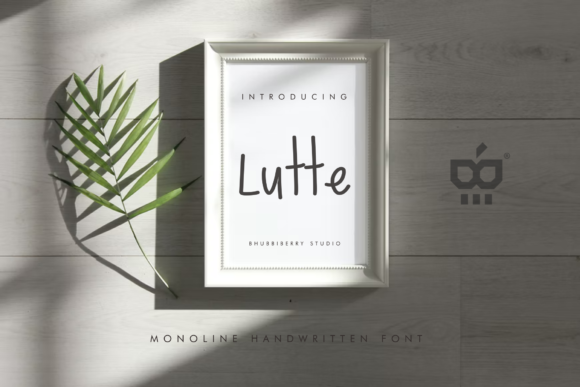
Unleash the Artistic Charm of Your School Logos with Lutte Font: A Typographic Masterpiece for Educational Excellence
In the realm of education, a school logo is more than just a visual representation; it's a powerful symbol of identity, pride, and aspiration. It's the emblem that adorns uniforms, letterheads, and school signage, leaving a lasting impression on students, parents, and the community. As educators, we understand the significance of crafting a school logo that truly captures the essence of your institution, conveying its values, mission, and unique spirit.
Introducing Lutte Font, the ultimate font family meticulously designed to elevate the visual impact of your school logos. Lutte, an exquisite thin lettered and simple script font, is the brainchild of bhubbiberrystudio, a renowned type foundry known for their exceptional craftsmanship in the world of typography.
With Lutte as your chosen font, your school logo will exude an aura of sophistication and elegance that sets it apart from the ordinary. Its graceful curves and delicate lines evoke a sense of timeless beauty, while its inherent versatility allows for endless creative possibilities.
Whether you envision a logo that radiates warmth and approachability or one that exudes strength and authority, Lutte's inherent versatility seamlessly adapts to your vision. Its thin strokes lend a touch of lightness and airiness, making it ideal for creating logos that feel inviting and welcoming. Alternatively, the font's bold presence commands attention, making it perfect for logos that demand a more assertive presence.
Beyond its aesthetic appeal, Lutte is a practical choice for school logos, ensuring legibility and clarity even at small sizes. This is of utmost importance, as your logo will be prominently displayed on a variety of materials, from letterheads and business cards to uniforms and banners. With Lutte, you can be confident that your school's logo will always convey your message with precision and impact.
Join the growing number of schools that have chosen Lutte Font to elevate their visual identity. Experience the transformative power of typography as Lutte breathes new life into your school's logo, attracting attention, inspiring pride, and leaving a lasting impression on all who encounter it.
Lutte Font: The Key to Unlocking Your School's True Potential
* Create a school logo that reflects your institution's unique character and values.
* Convey a sense of sophistication and elegance that sets your school apart.
* Ensure legibility and clarity even at small sizes, making your logo effective in a variety of applications.
* Embrace versatility and endless creative possibilities, allowing your logo to adapt to your evolving needs and aspirations.
With Lutte Font as your ally, your school's logo will transcend the ordinary, becoming a symbol of pride, excellence, and the boundless potential that lies within your educational community.